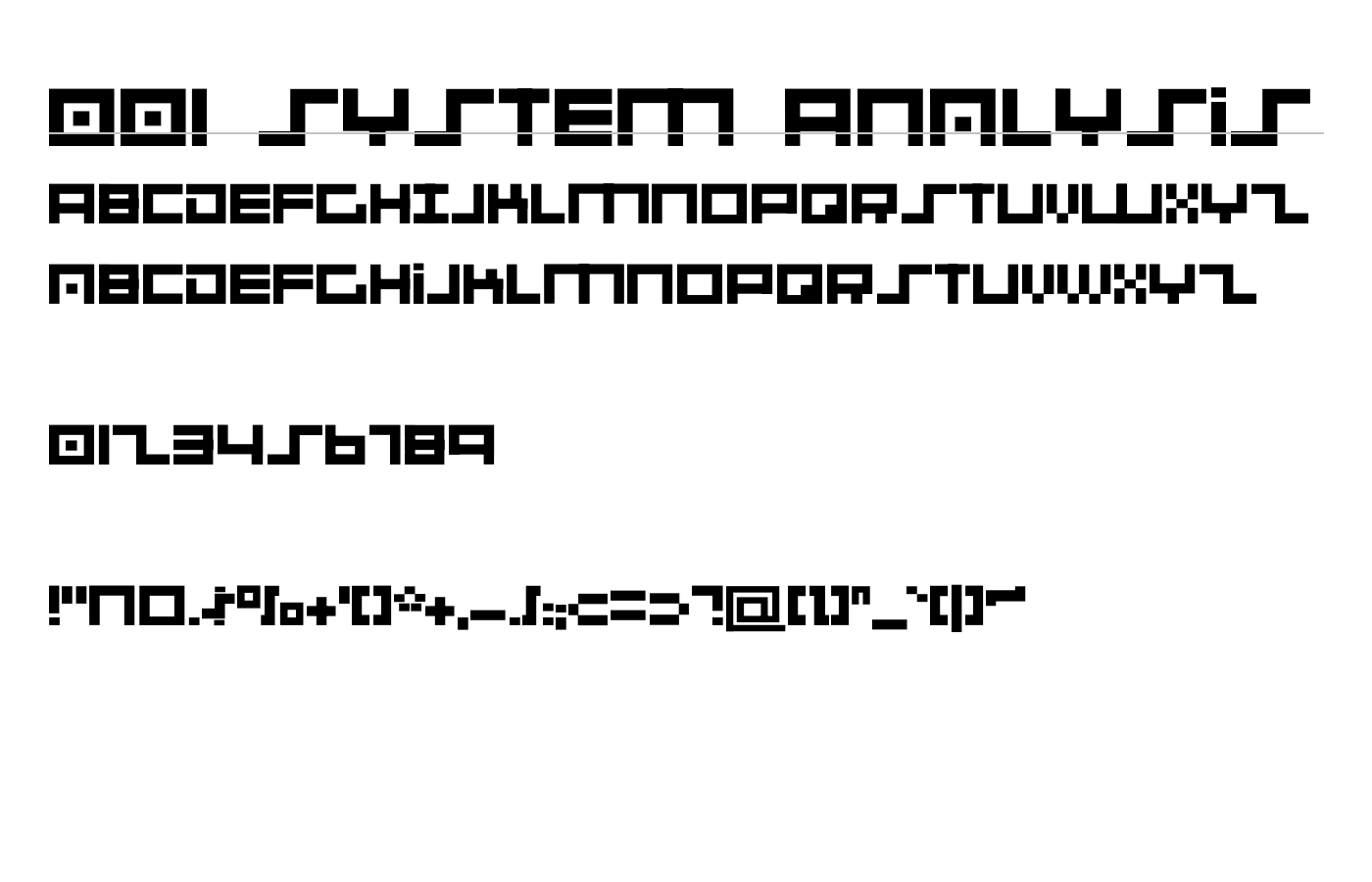
001 System Analysis is a bold, geometric sans serif font with a futuristic and tech-inspired look. Its blocky, pixelated letterforms create a strong digital and mechanical vibe, perfect for projects related to technology, gaming, and data visualization. This font works best for headlines, logos, and digital displays where a distinctive, modern style is needed.
001 System Analysis Font
About 001 System Analysis Font